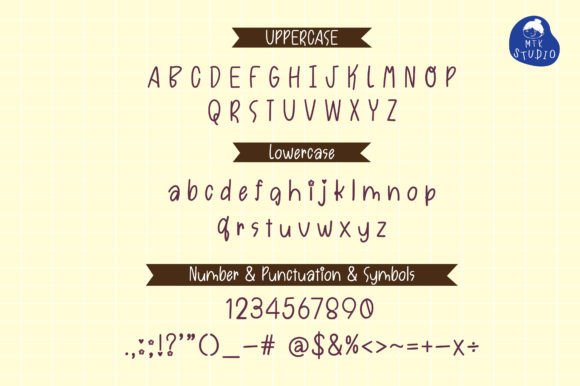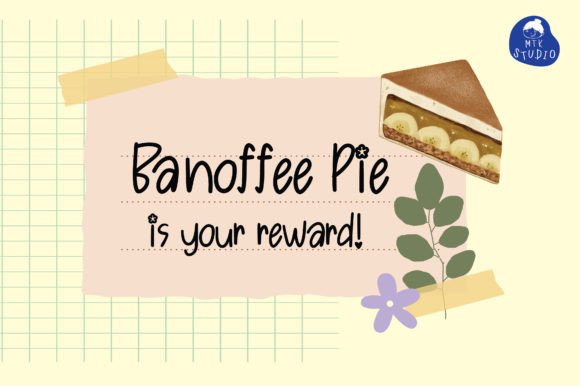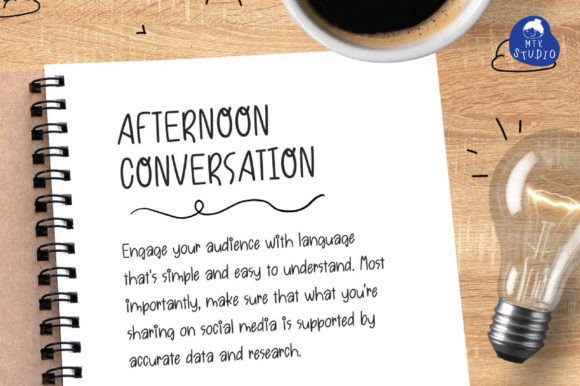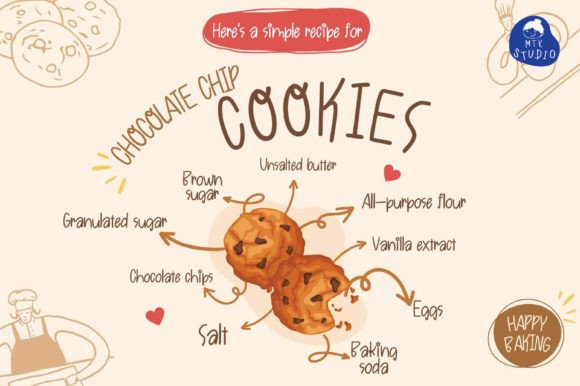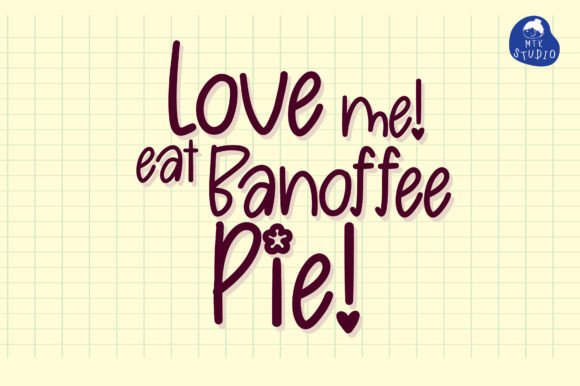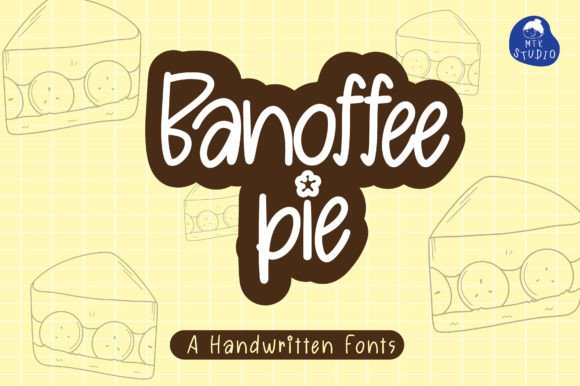
Banoffee Pie Font: The Sweetest Addition to Your Design Collection
Are you on the hunt for a font that’s as sweet as it is versatile? Look no further than Banoffee Pie, a delightful handwritten font that’s perfect for designers and crafters alike. With its natural and unique style, Banoffee Pie is sure to become a staple in your design toolkit.
The Charm of Banoffee Pie
Banoffee Pie is a sweet and friendly handwritten font that’s designed to bring a touch of warmth and personality to your designs. Its natural and unique style makes it incredibly fitting to a large pool of designs, from rustic and vintage-inspired projects to modern and playful ones. The only limit is your imagination!
What Makes Banoffee Pie So Special?
So, what sets Banoffee Pie apart from other fonts out there? Here are just a few reasons why this font is a must-have for designers and crafters:
• Unique and Handwritten Style: Banoffee Pie boasts a one-of-a-kind, handwritten style that’s full of character and charm. Its irregularities and quirks make it feel more like a personal, hand-written message than a generic font.
• Versatility: Whether you’re designing a logo, creating a social media graphic, or crafting a handmade project, Banoffee Pie is the perfect choice. Its versatility knows no bounds, and it’s sure to become a go-to font for a wide range of projects.
• Easy to Read: Despite its unique and playful style, Banoffee Pie is incredibly easy to read. This makes it perfect for designs where you need to convey a message or tell a story.
How to Use Banoffee Pie in Your Designs
Ready to get creative with Banoffee Pie? Here are a few ideas to get you started:
• Handmade Projects: Banoffee Pie is a natural fit for handmade projects like scrapbooking, card-making, and DIY crafts. Use it to add a personal touch to your creations.
• Branding and Logo Design: With its unique and memorable style, Banoffee Pie is perfect for branding and logo design. Use it to create a custom logo that stands out from the crowd.
• Social Media Graphics: Add a touch of personality to your social media graphics with Banoffee Pie. Use it to create eye-catching posts, stories, and ads that grab attention.
Tips and Tricks for Working with Banoffee Pie
Here are a few tips and tricks to help you get the most out of Banoffee Pie:
• Experiment with Colors: Banoffee Pie looks great in a variety of colors, from bright and bold to soft and pastel. Experiment with different hues to find the perfect look for your design.
• Play with Pairings: Banoffee Pie pairs well with a range of fonts, from clean and simple sans-serifs to ornate and decorative scripts. Experiment with different pairings to find the perfect combination for your design.
• Don’t Be Afraid to Get Creative: Banoffee Pie is a font that’s meant to be played with. Don’t be afraid to experiment and try new things – it’s all part of the fun!
In conclusion, Banoffee Pie is a sweet and friendly handwritten font that’s perfect for designers and crafters alike. With its natural and unique style, versatility, and ease of use, it’s sure to become a staple in your design toolkit. So why wait? Download Banoffee Pie today and start creating your own sweet designs!